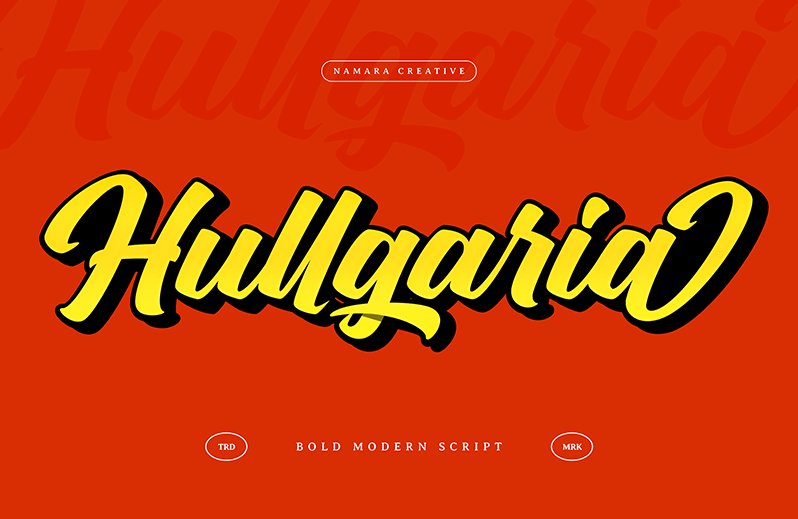
Hullgaria
bold modern script font with retro flair, featuring smooth ligatures, alternates, and multilingual support — perfect for logos, branding, apparel, and creative displays. Features : - Full set of standard characters and punctuations. - Alternates, ligatures, swashes and multilingual support. - PUA Encoded | no special software needed to access extra characters. Notes : - This Font is PERSONAL USE ONLY, NO COMMERCIAL USE ALLOWED! - For Full Version and COMMERCIAL USE, please purchase license here https://onedsgn.com/product/hullgaria-bold-script-fonts